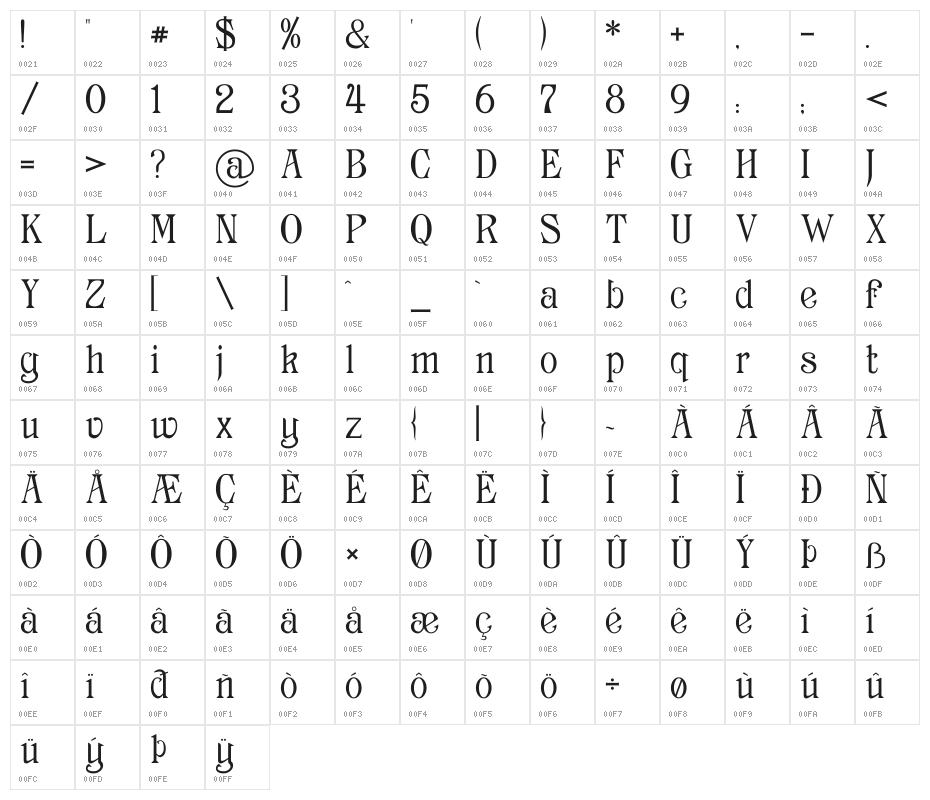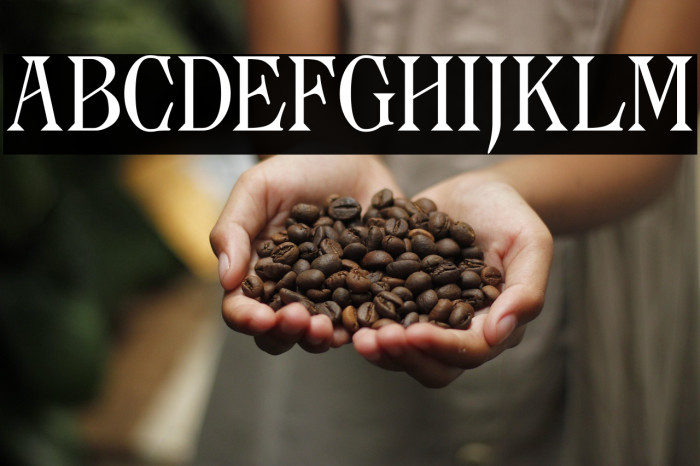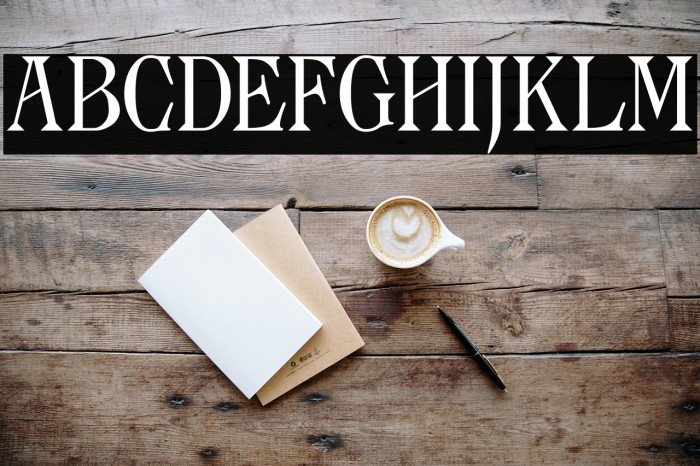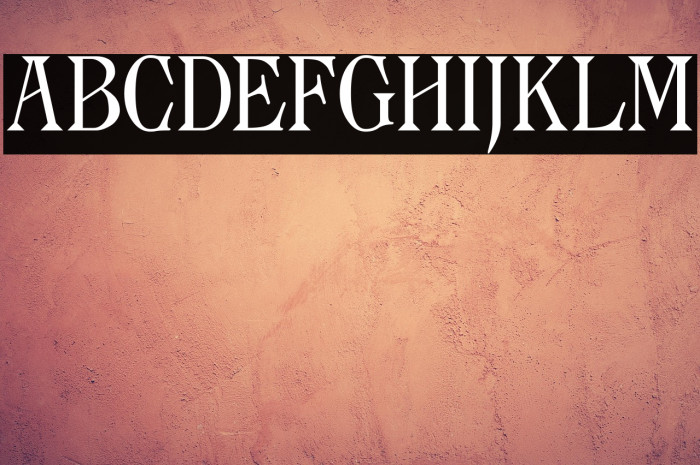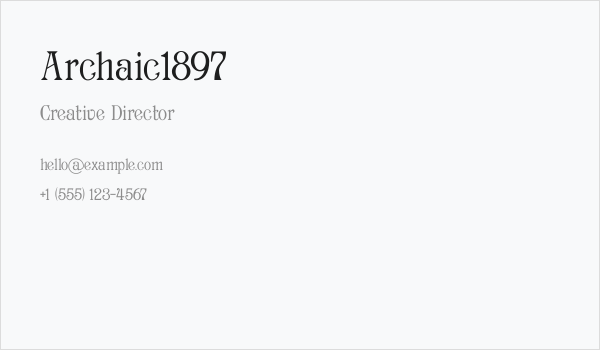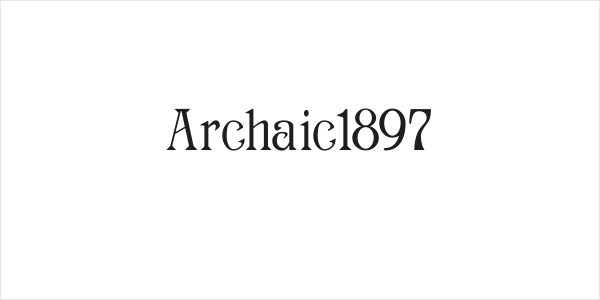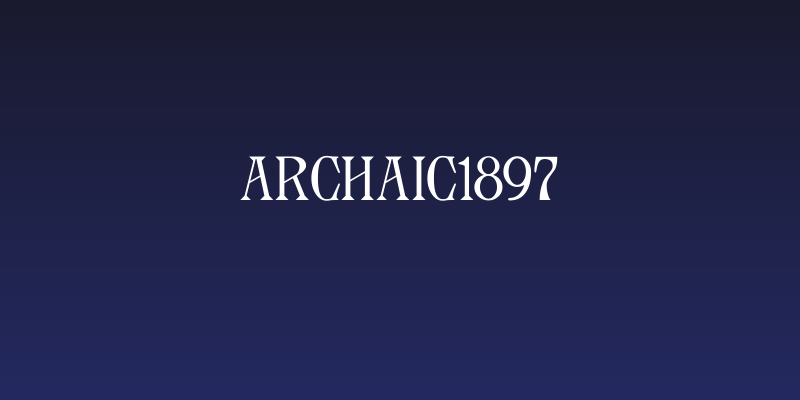
Archaic1897 Font
Archaic1897 Description
This font exhibits a classic and elegant style, characterized by its sharp serifs and high contrast between thick and thin strokes. The uppercase letters are tall and commanding, while the lowercase letters maintain a harmonious balance with a slightly condensed appearance. The numerals are distinct and easily readable, featuring a traditional design that complements the overall aesthetic. Special characters are well-integrated, maintaining the font's sophisticated and timeless appeal. This font is suitable for projects that require a touch of elegance and formality.